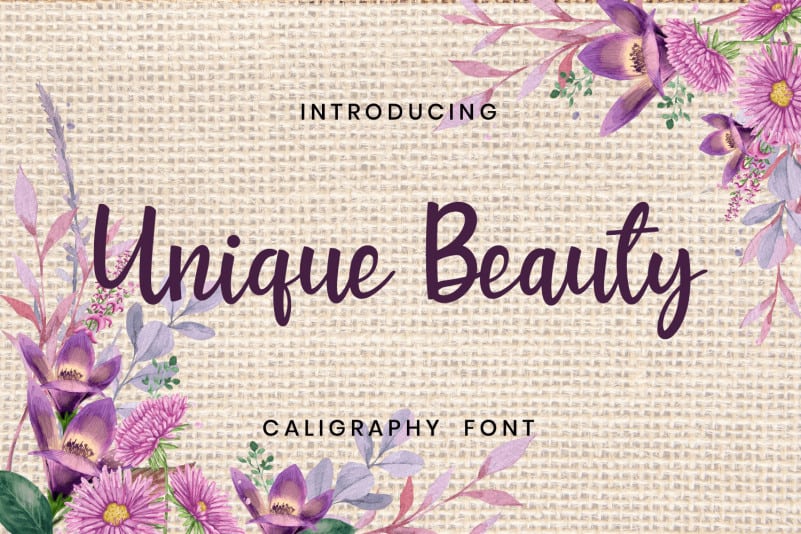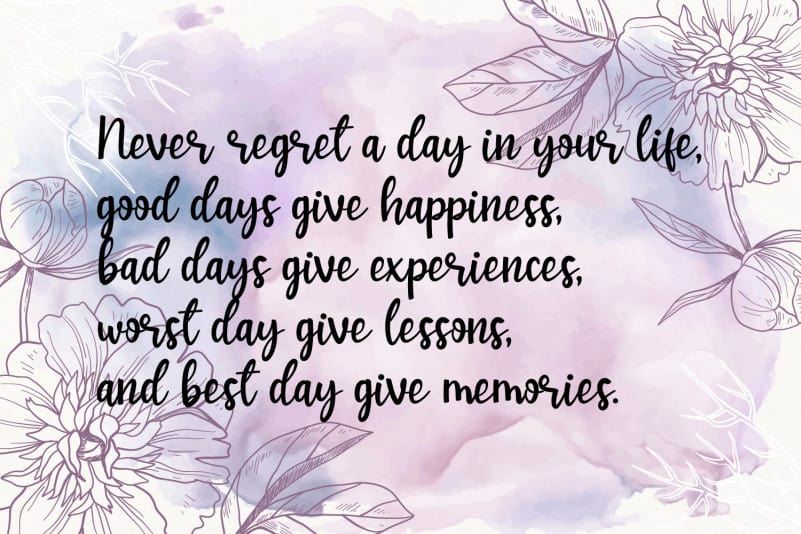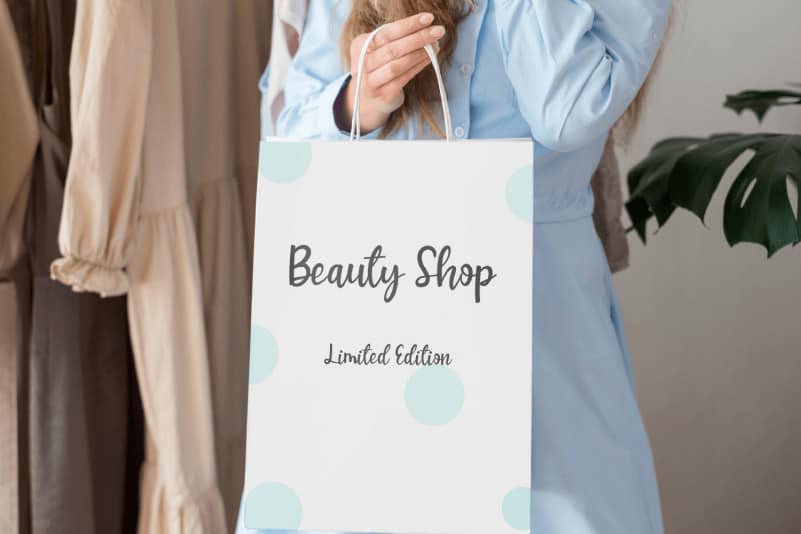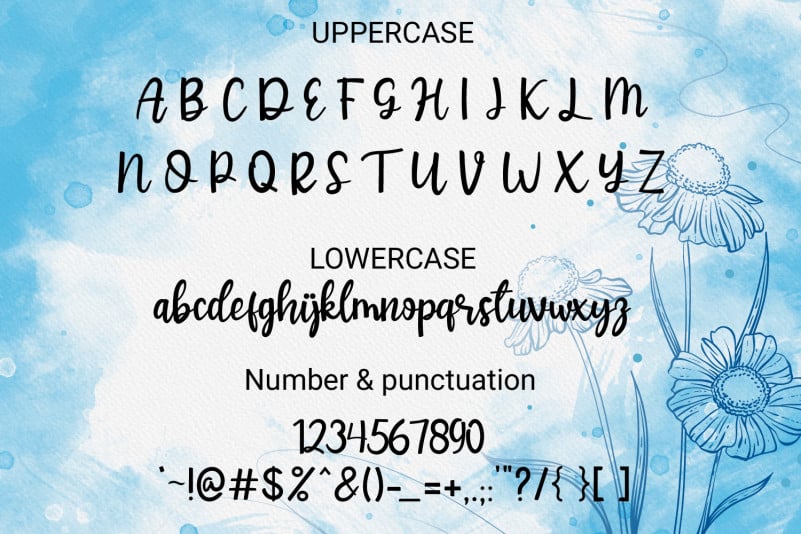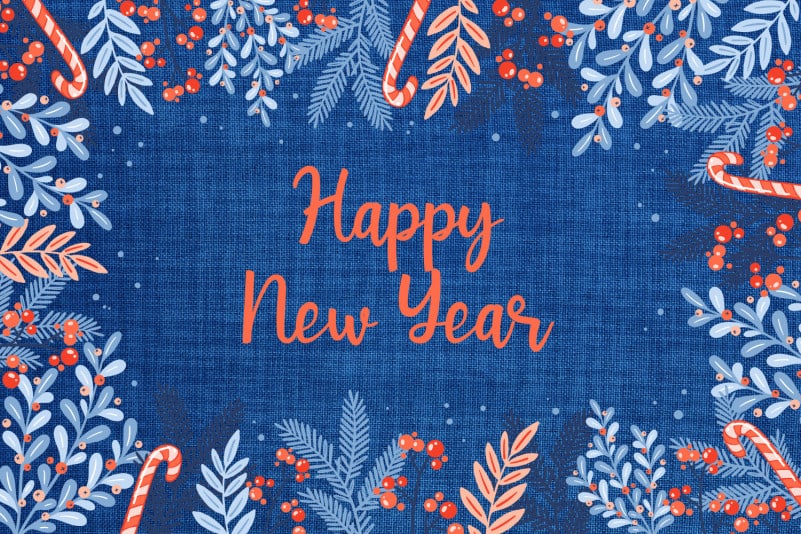
Unique Beauty Script Font is a flowing and elegant handwritten font, created with the help of a brush pen. Get inspired by its unique and beautiful style and add it to your favorite designs!